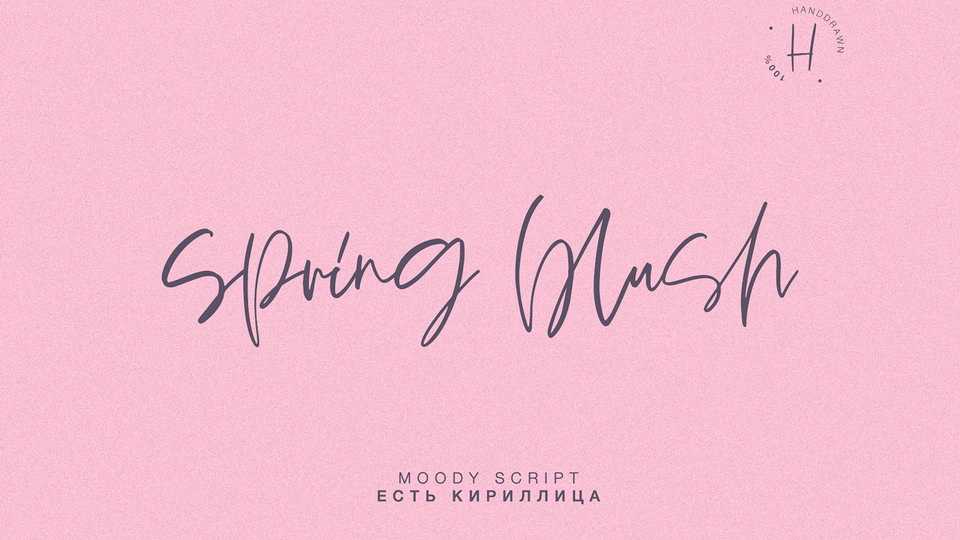
Download Spring Blush font, an amzing handwritten script which breaks the boundaries even more. It used SVG technology to achieve maximum realism. The font retains the texture and transparency of the original tool.
Designer: Dmitriy Chirkov